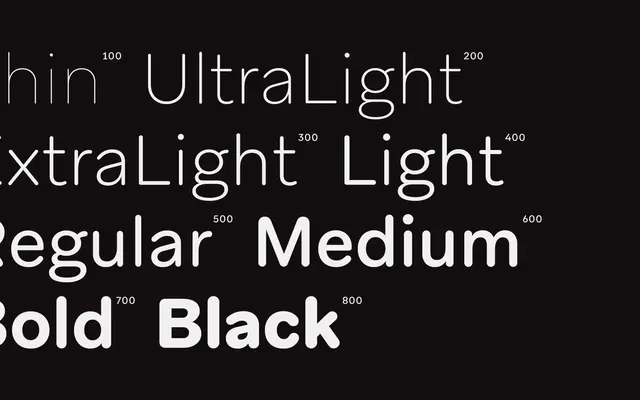
Aribau Rounded
Originally commissioned for a banking institution, this rounded grotesque pairs the clarity of Aribau Grotesk with softened terminals that add warmth without veering into playfulness.
Aribau Rounded is the companion to Aribau Grotesk, retaining its structural clarity while introducing rounded contours that give the family a more approachable tone. Sixteen styles span eight weights from Thin to Black, each with a matching italic, plus a variable font, making it a practical choice for branding, annual reports and interface work. The design avoids the childlike associations common to rounded sans typefaces, keeping it credible across both editorial and corporate contexts.
A grotesque sans with softened, rounded terminals derived from Aribau Grotesk, designed for warmth without sacrificing legibility or professional register.